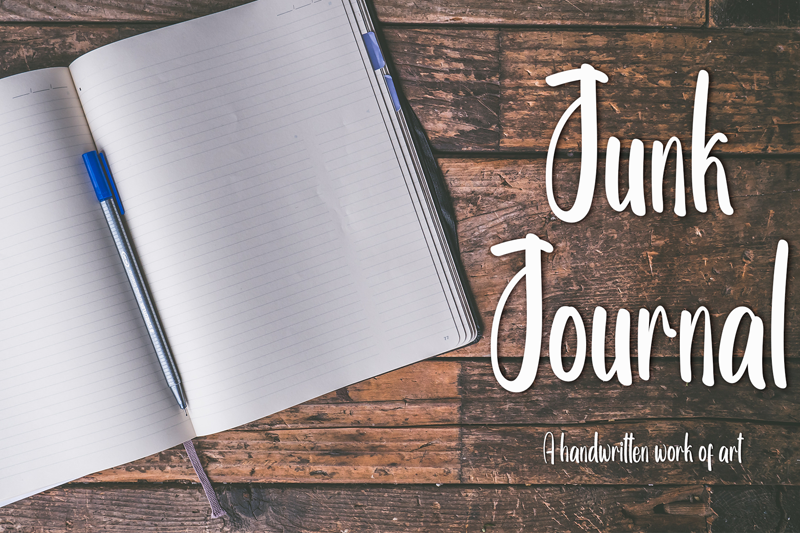
Junk Journal
DETAILS This font retains a classy calligraphic influence while feeling contemporary and fresh. This versatility will attract a wide range of creative ideas, from letterheads and titles to stationery. _________________________________________________________________________ WARNING!!! By installing or using this font, you agree to the Product Use Agreement: - This font has the FULL VERSION and is for PERSONAL USE ONLY. NO COMMERCIAL USE! - If you need a CUSTOM PERMISSION or COMPANY LICENSE, please visit: https://creativewritting.com/product/61beautiful-lenttering/ or click the link below: www.creativewritting.com http://www.creativewritting.com _________________________________________________________________________ Attention : It is forbidden to use this font for commercial purposes or for profit without the permission of the author / admin, without knowing that using this font without the permission of www.creativewritting.com http://www.creativewritting.com will be penalized 5x the specified price. Every donation is greatly appreciated. Paypal account for donation: (paypal.me/masteeng99)